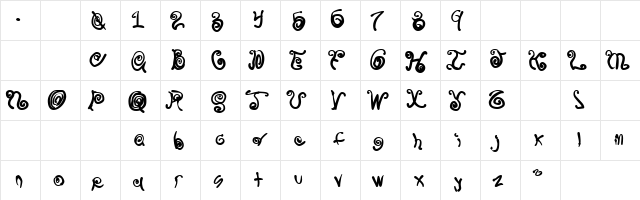
Spurly Curly Regular Font Preview
Spurly Curly Regular
Spurly Curly Regular Font Details
Design Context for Spurly Curly Typeface
Spurly Curly is a composed and adaptable typeface that performs quietly and consistently across a wide range of design contexts.